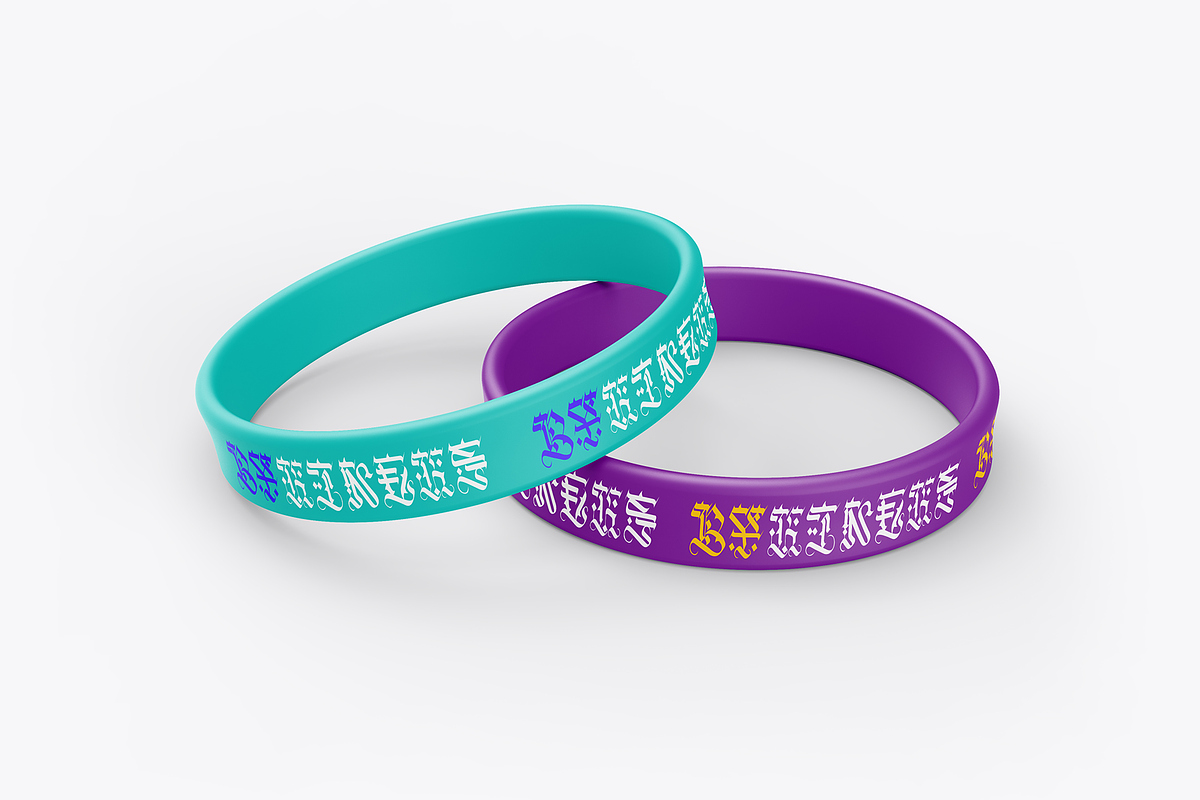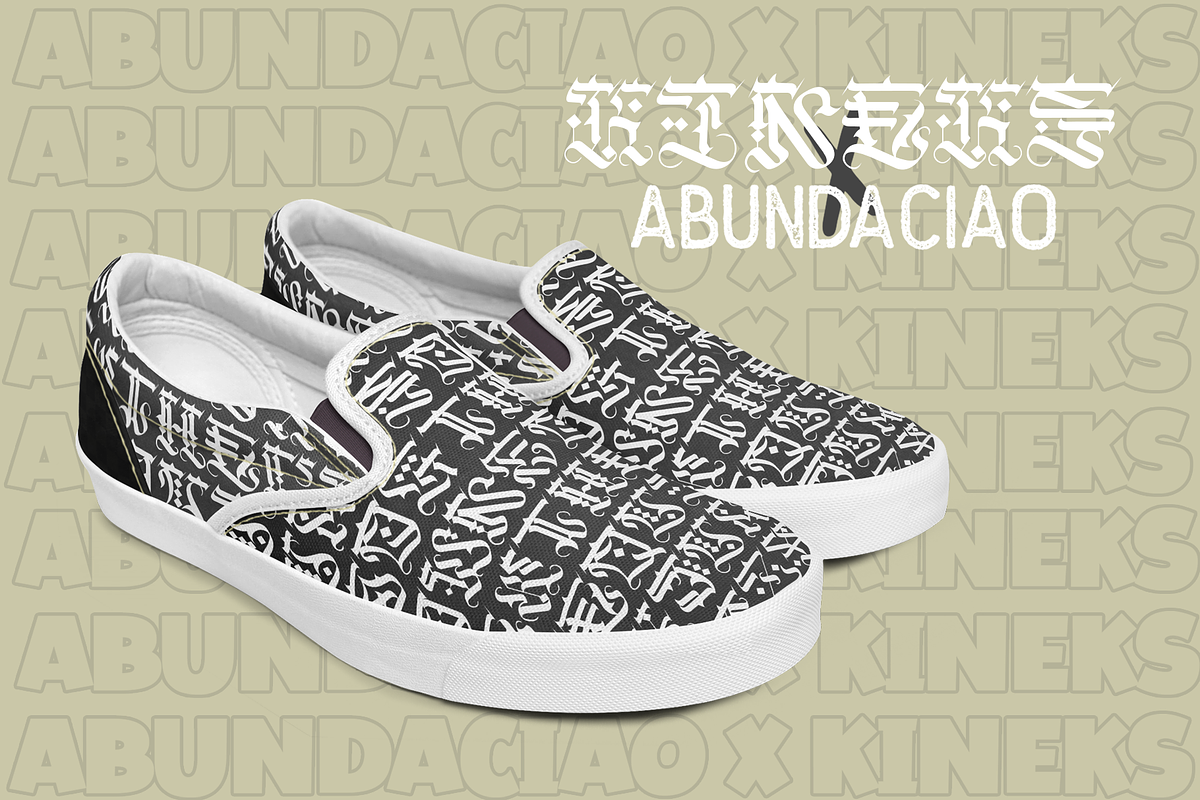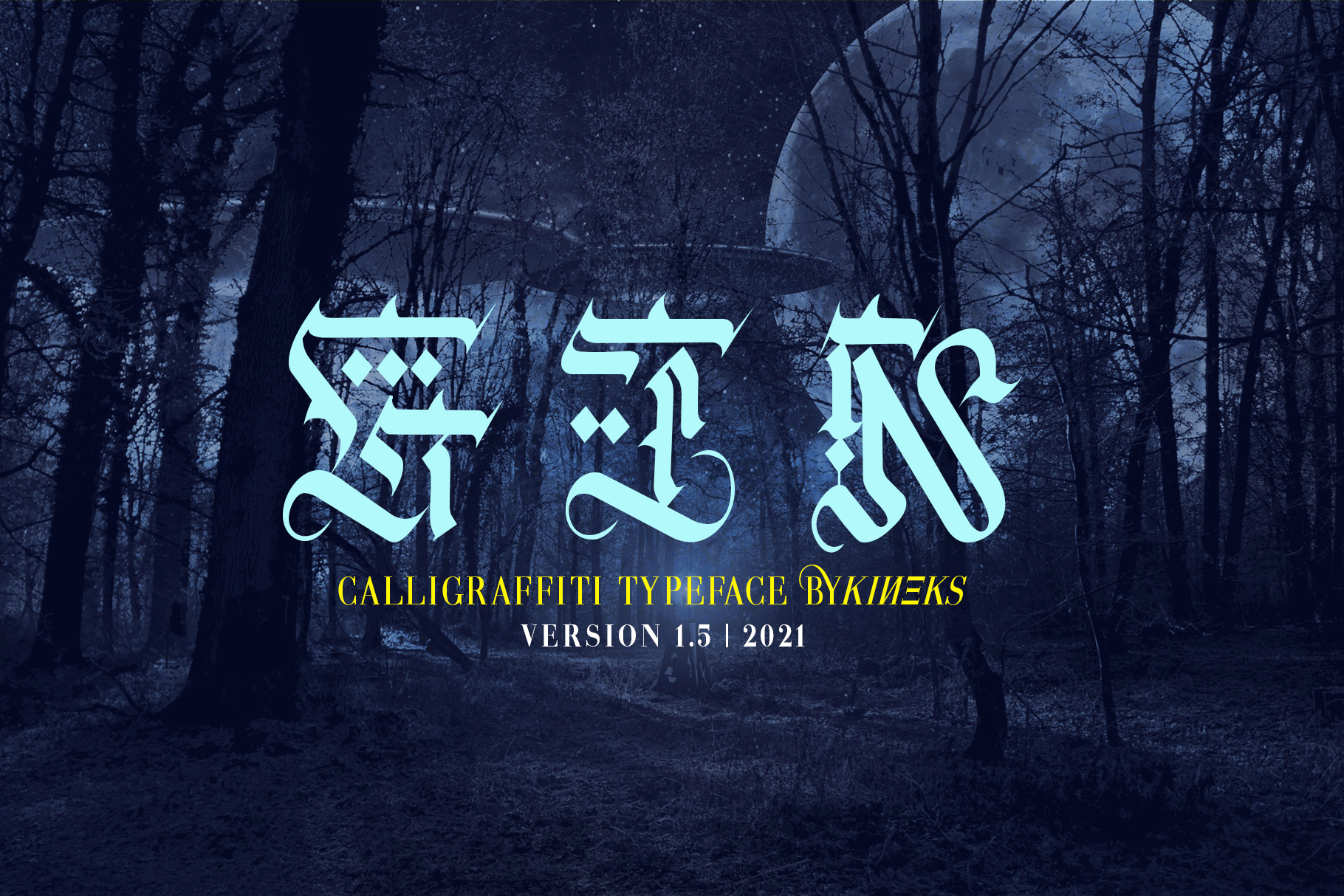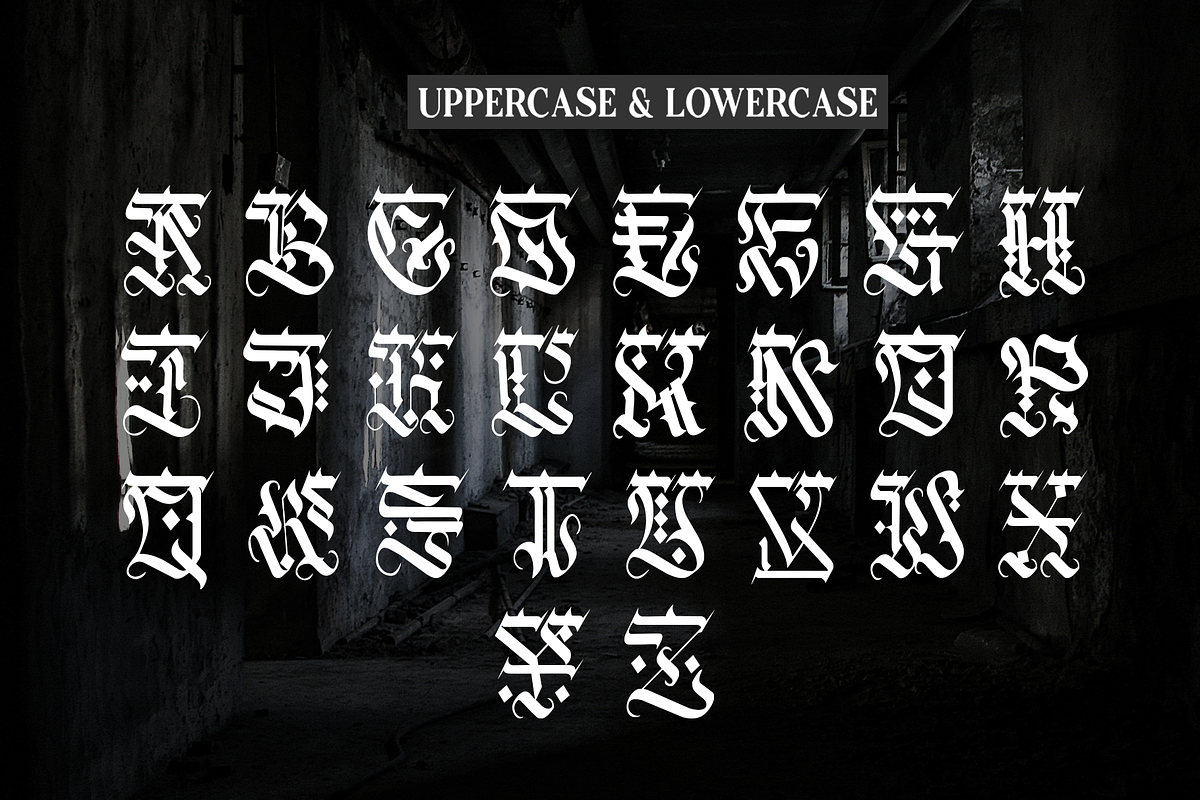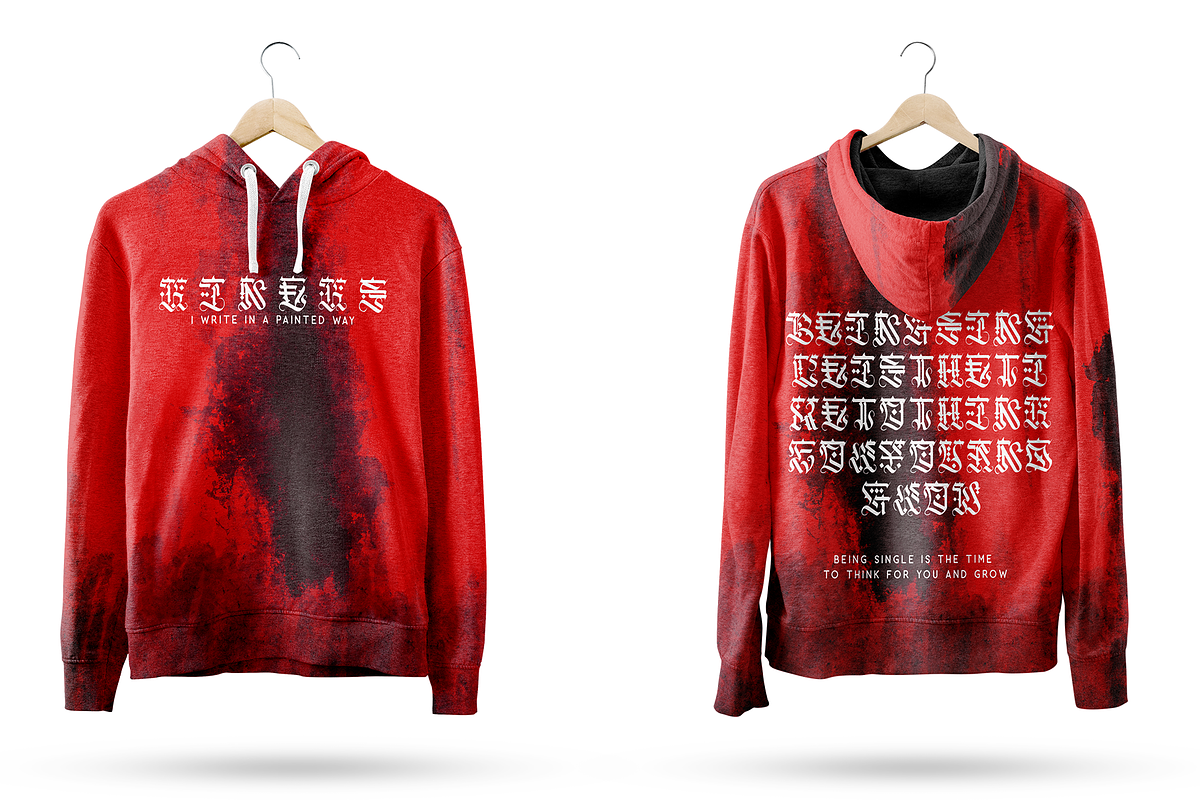
Gin | Calligraffiti Font
Gin is a futuristic decorative font that combines calligraphy, graffiti and typography. This font is inspired by the street art called calligraffiti where it is abstract and elegant. This font is suitable for those who are anti mainstream and out of the zone, this is a new face in the world of fonts, for those who are against this font it will be considered broken but for those who are from the future, this font is an answer to futuristic design needs